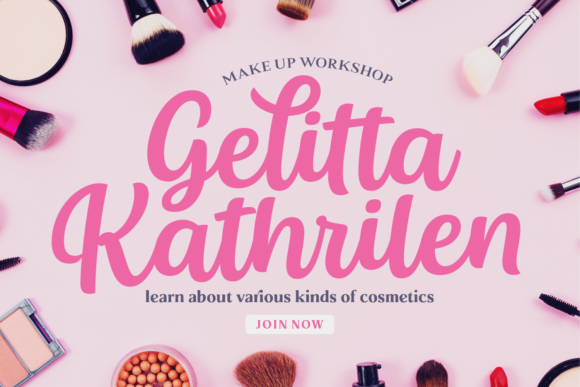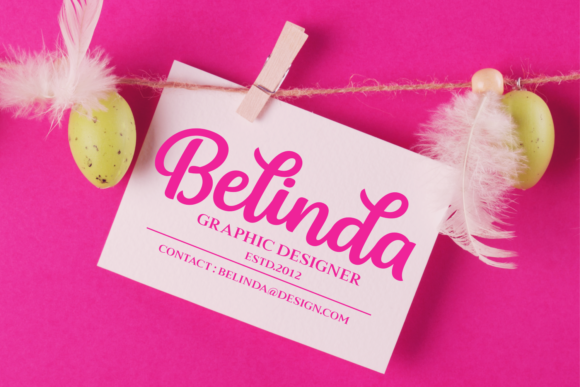
Faves Font
db-ku.com - Script & Handwritten -- Faves is a lovely paint brushed handwritten font. This font is PUA encoded which means you can access all of the glyphs and swashes with ease!